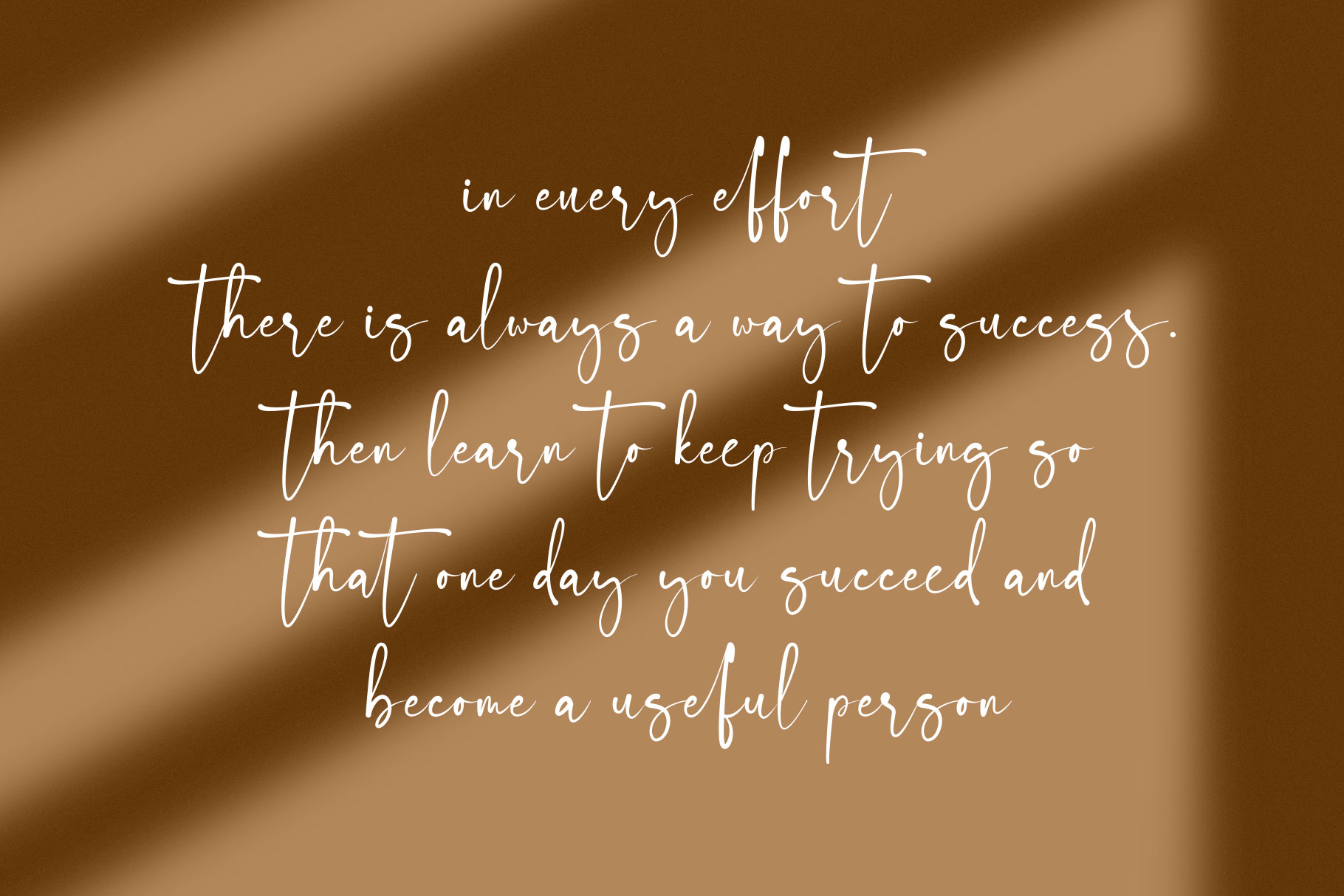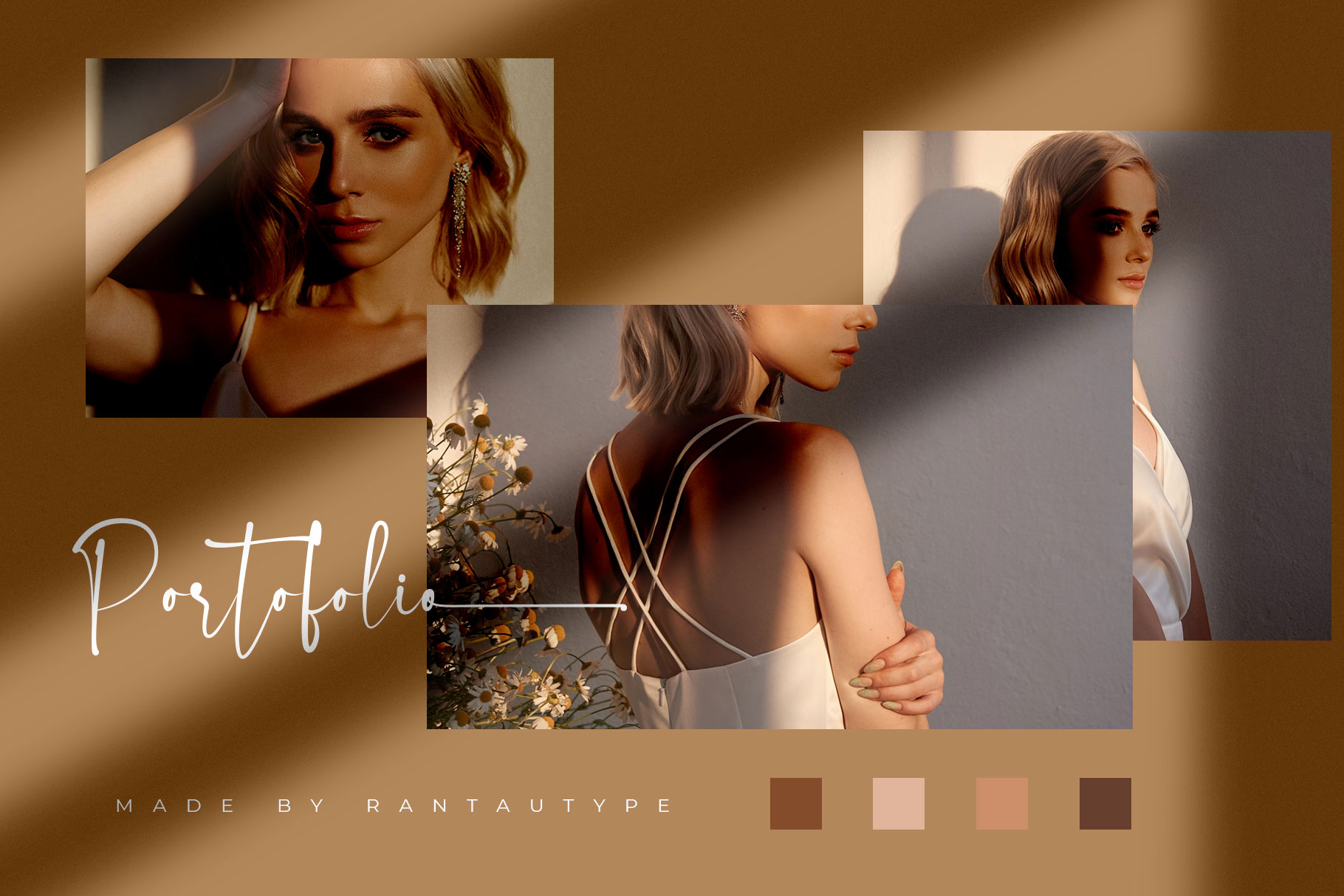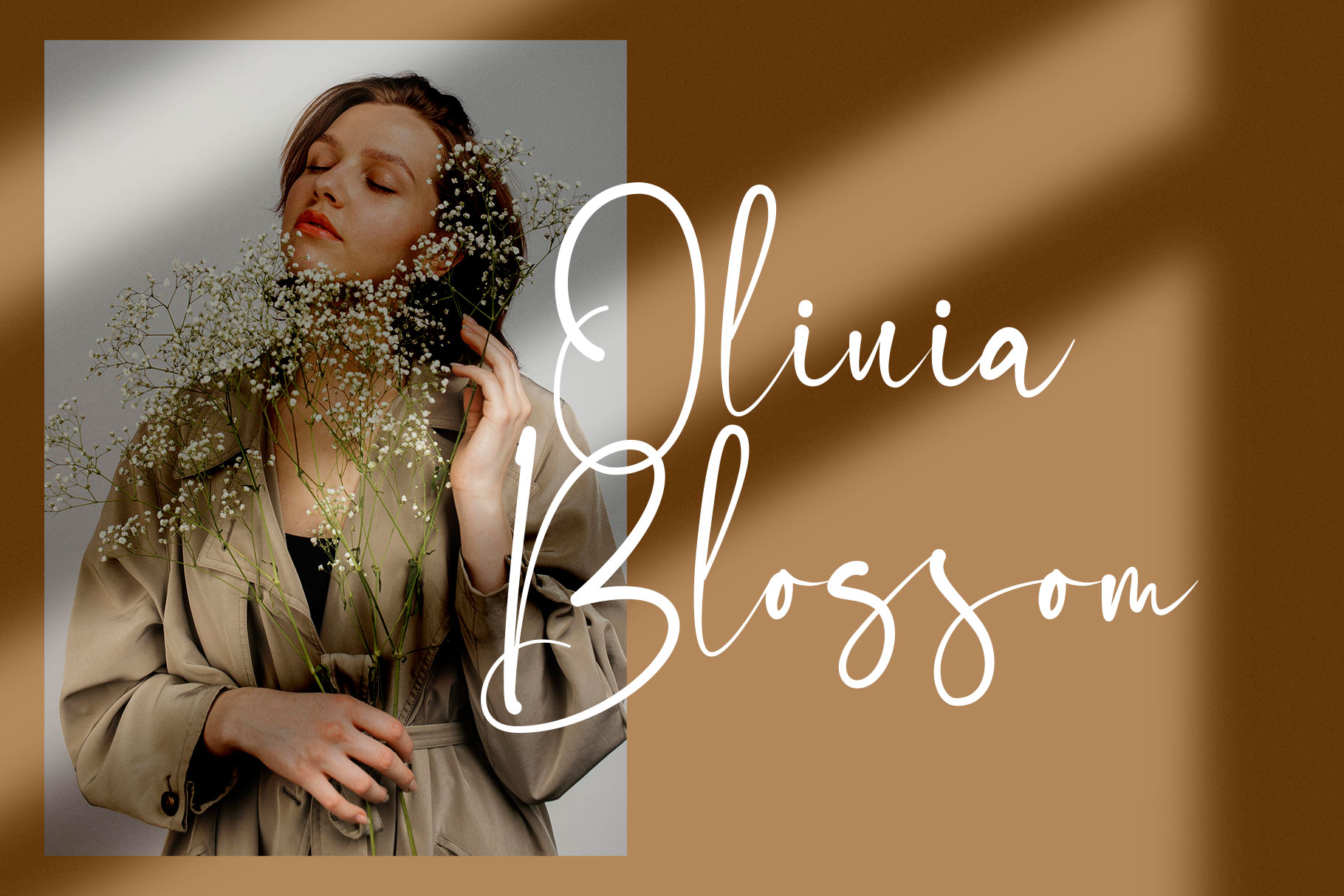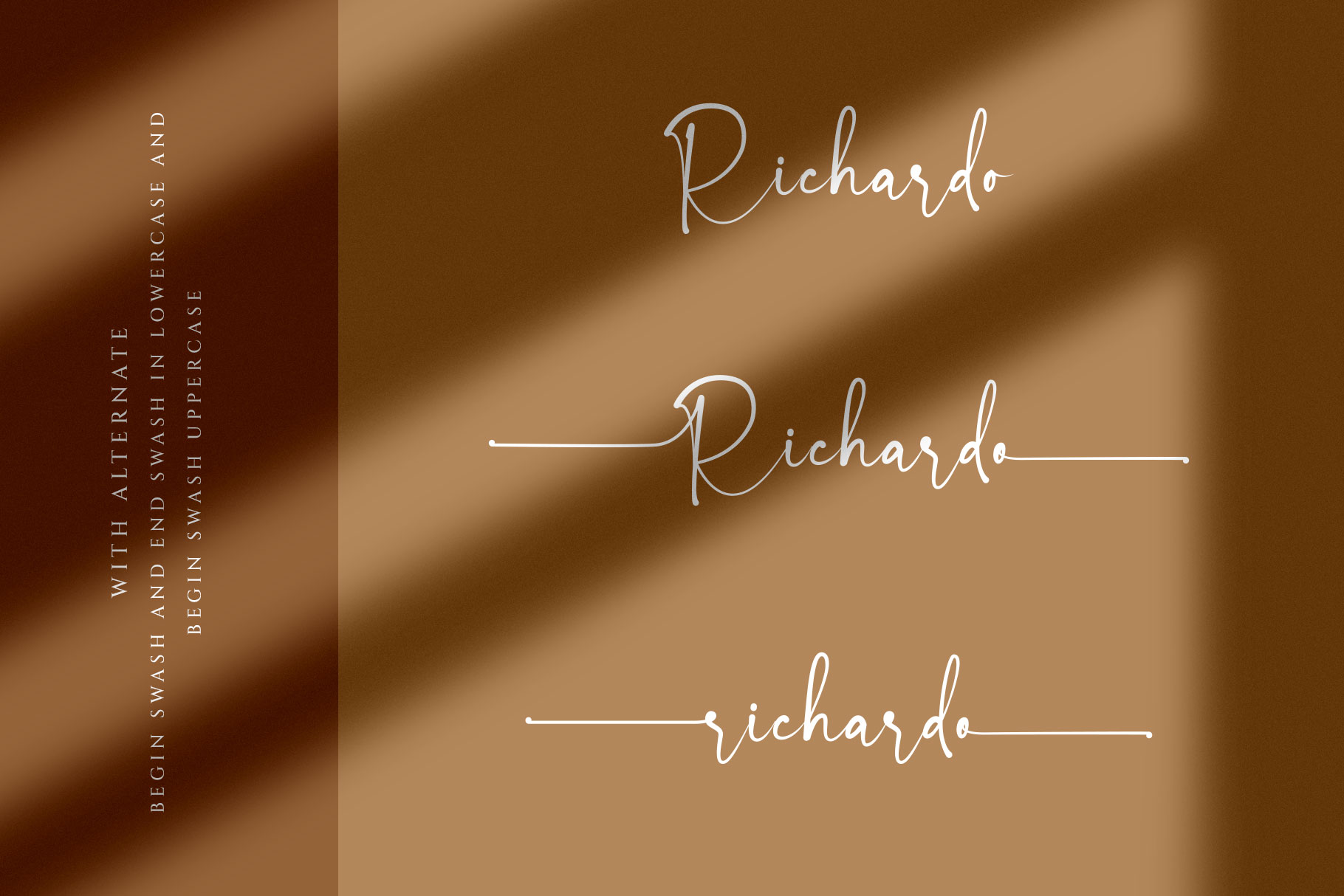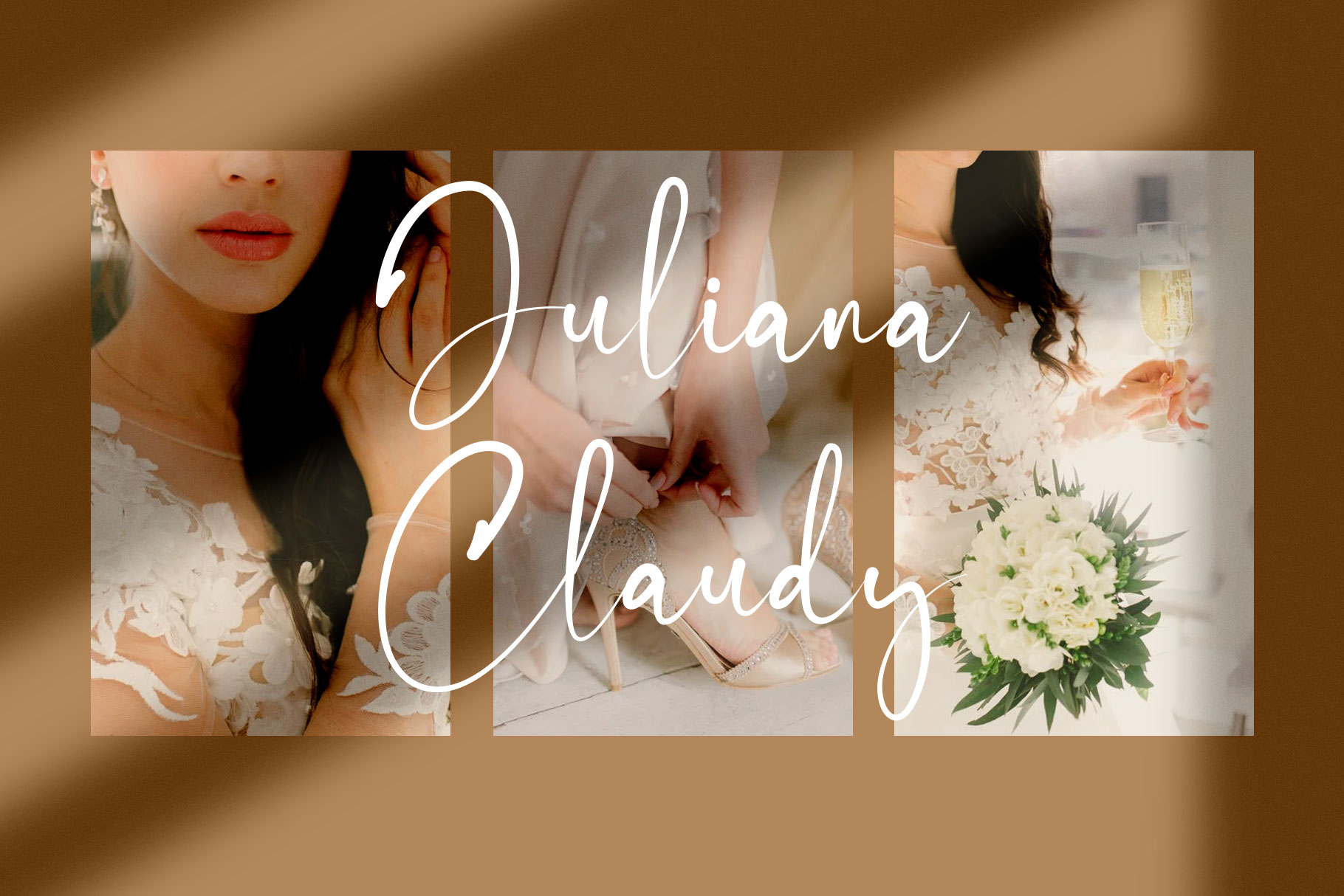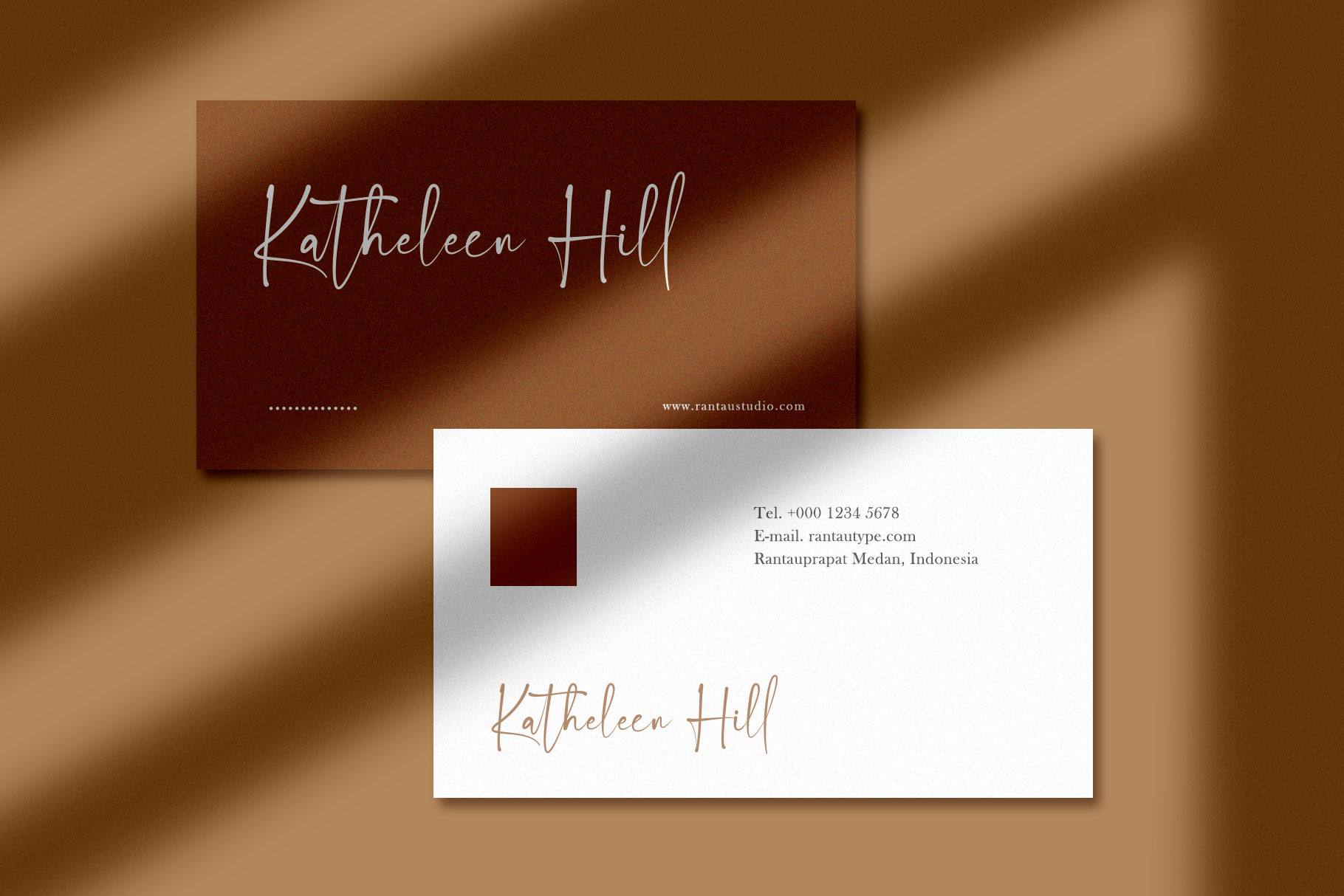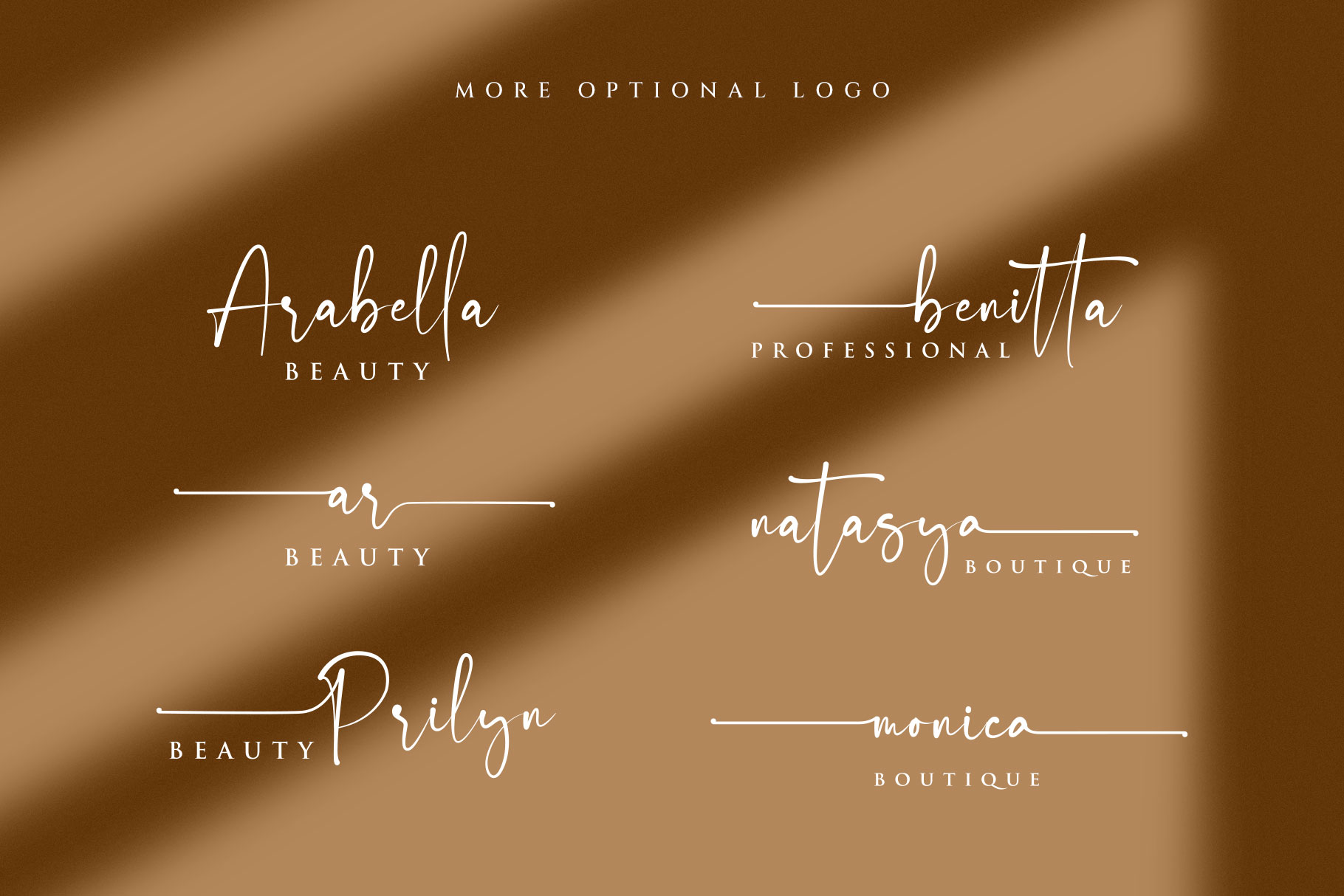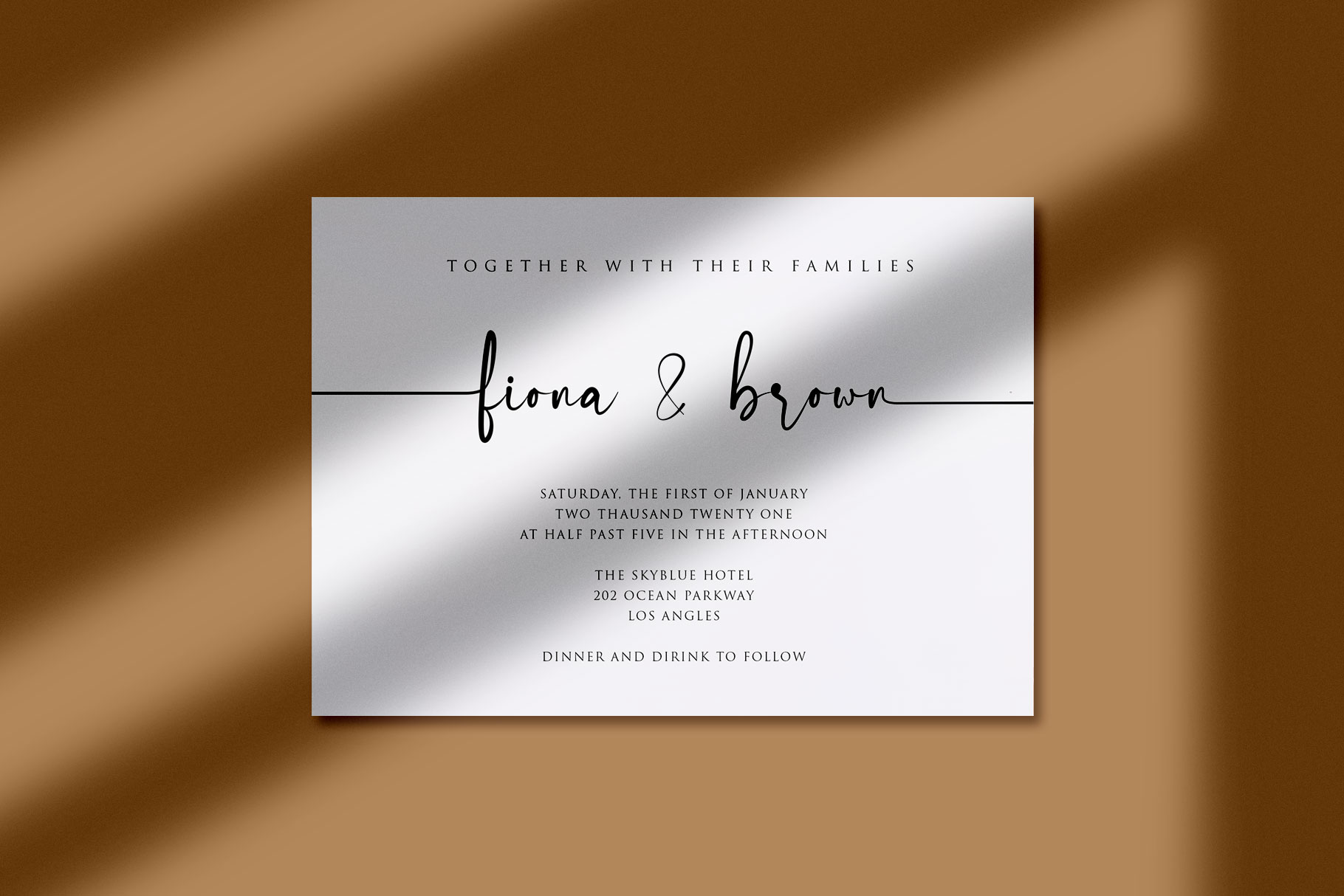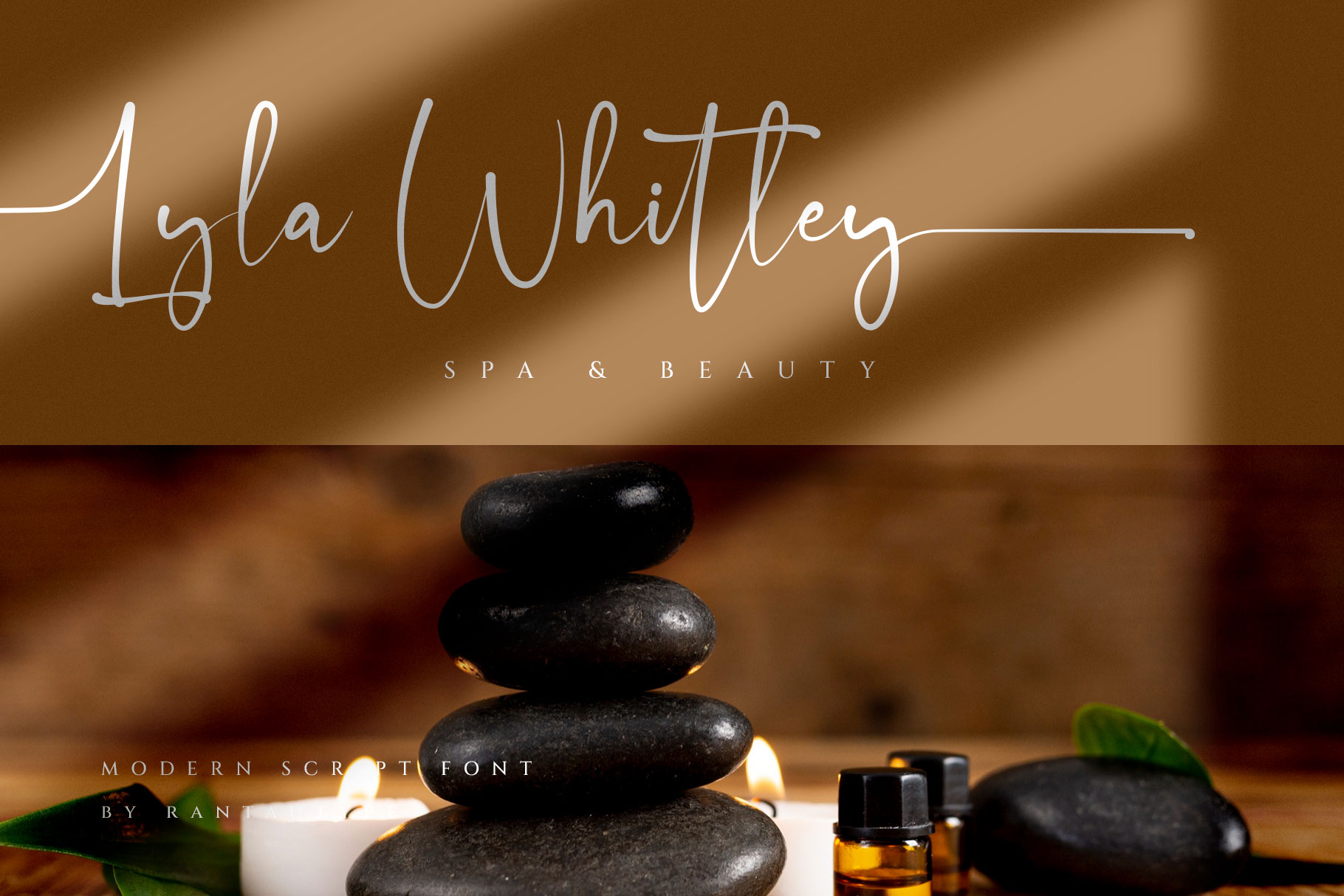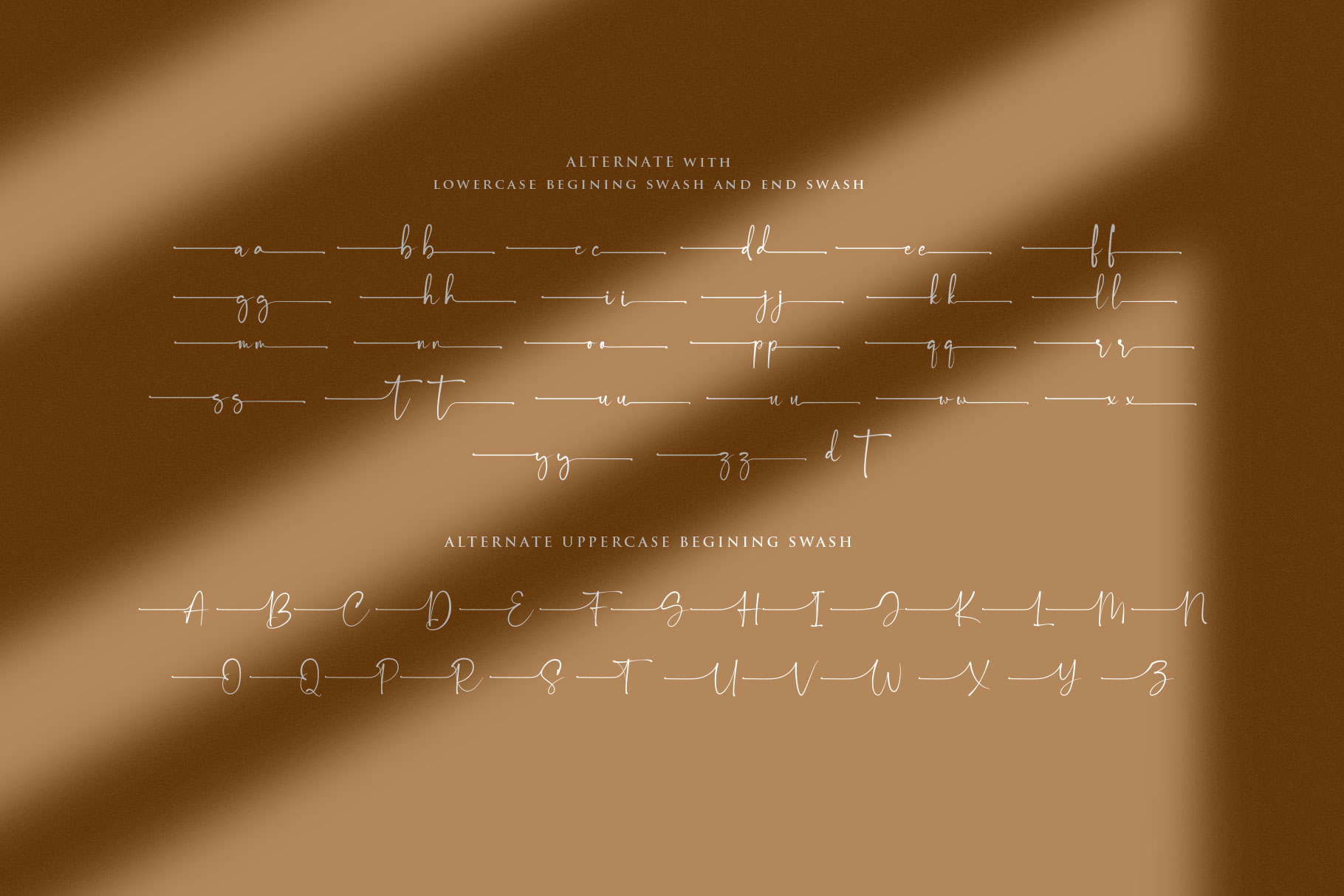
Surreally Handwritten Font
Surreally is script maybe can be in signature  style which can be interpreted professional. we keep this font looks modern, readable, stylish, catchy and easy to use. Surreally is the great choice for watermark on photography, signature or signature logo design, quotes, album cover, magazine, business card and many other design project. Surreally here to make your work to high level!!!